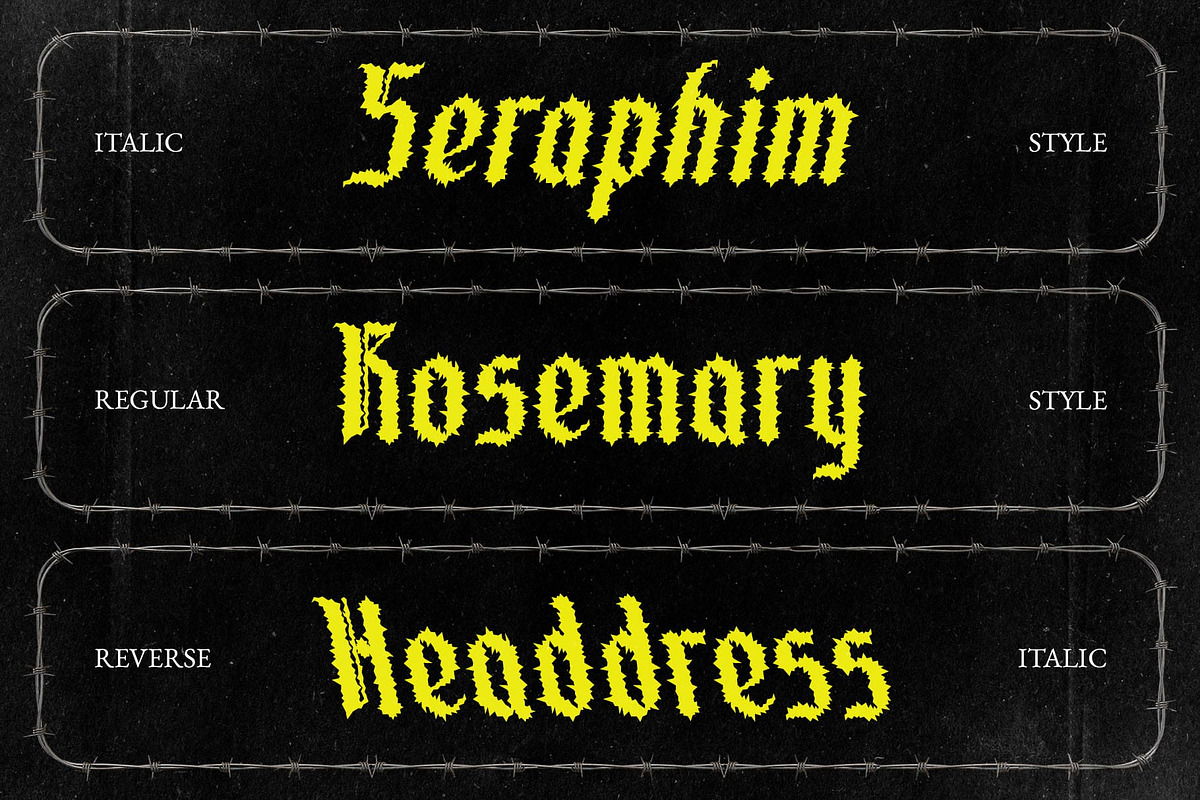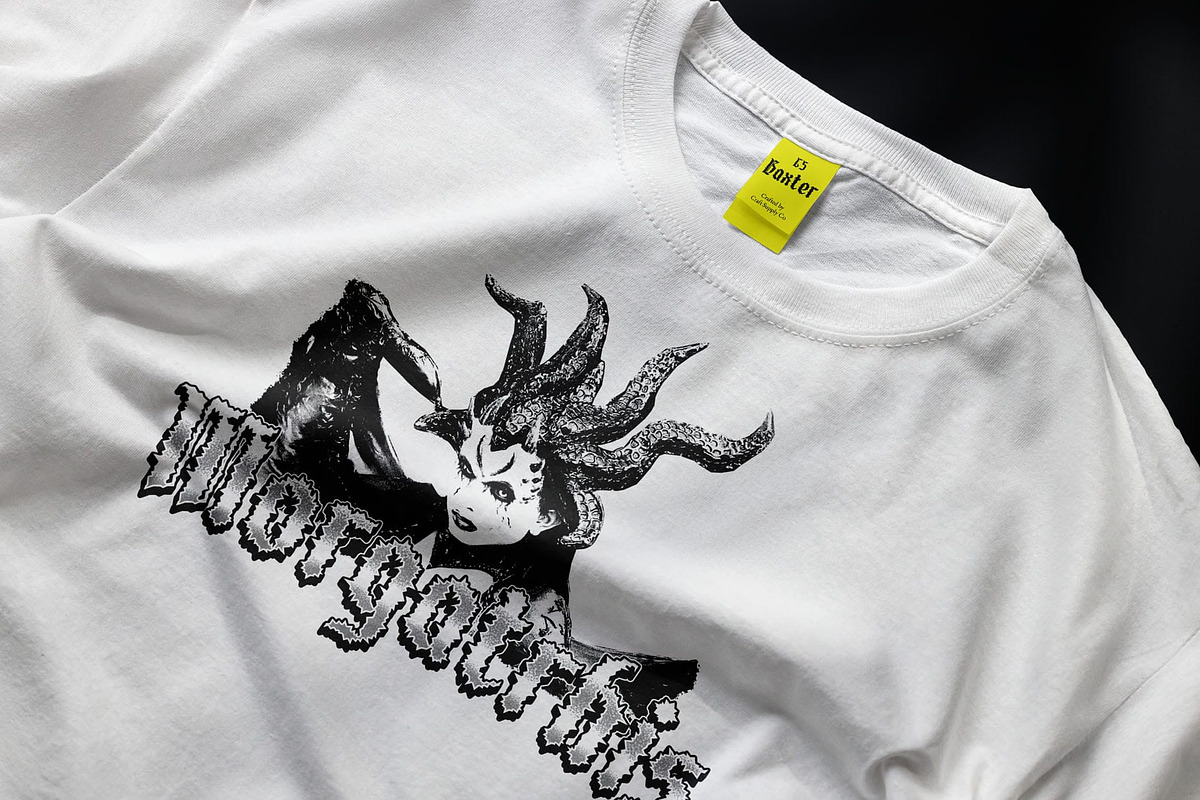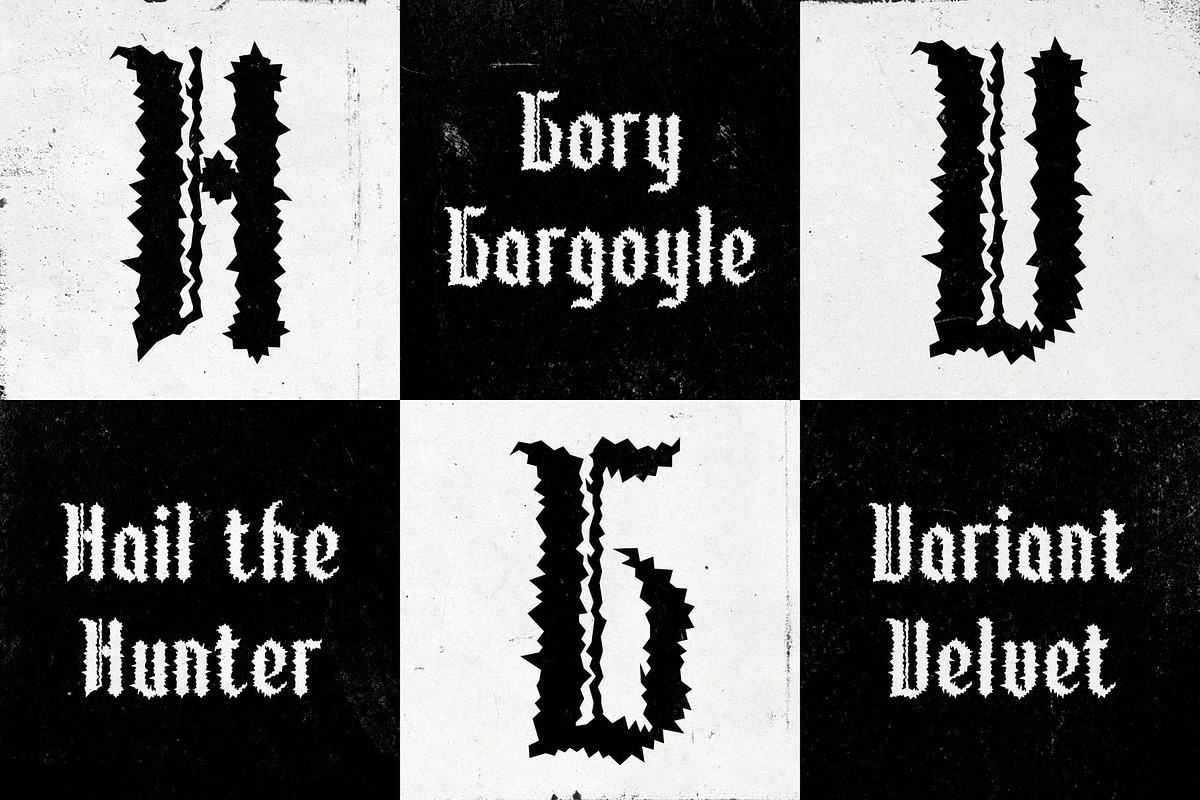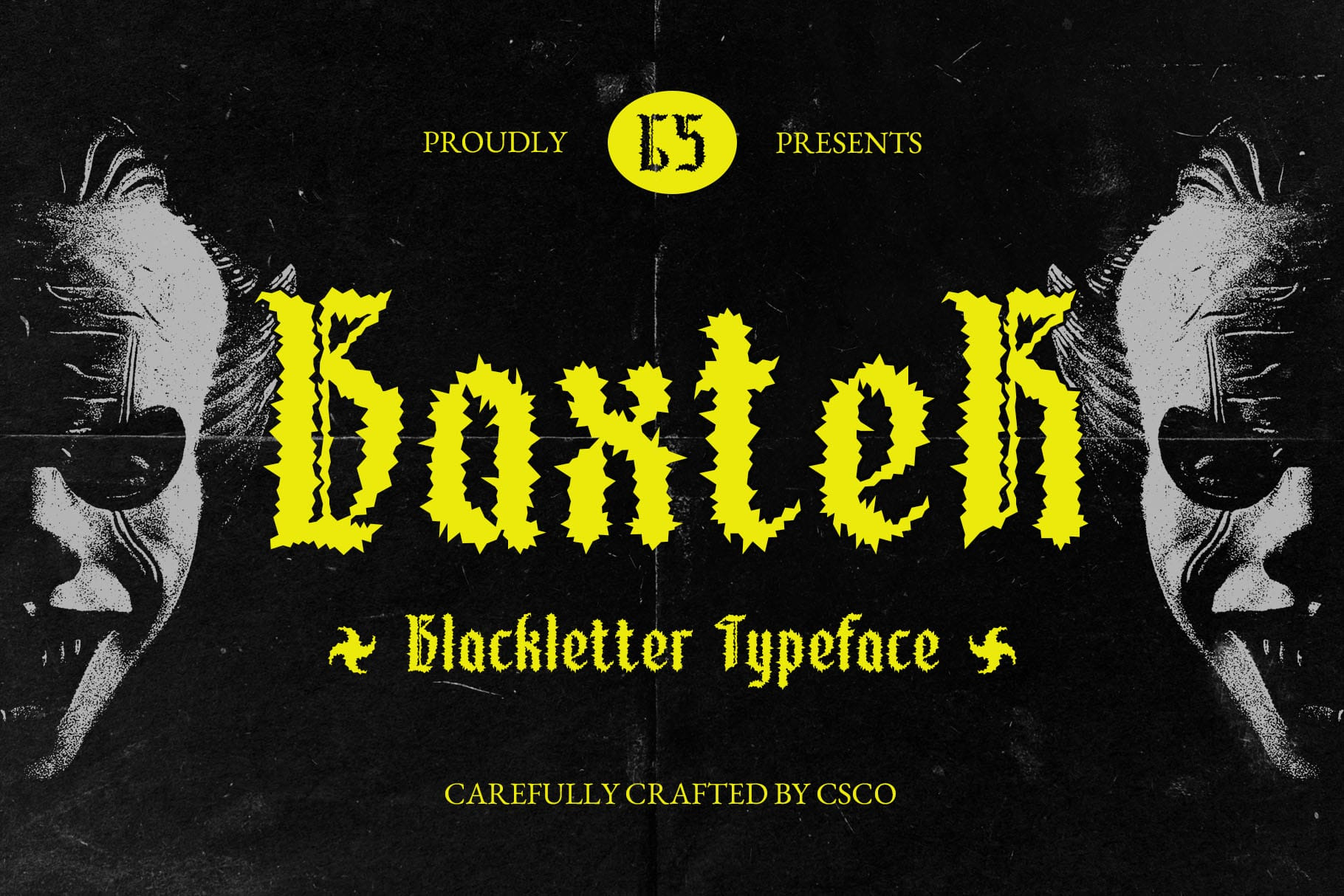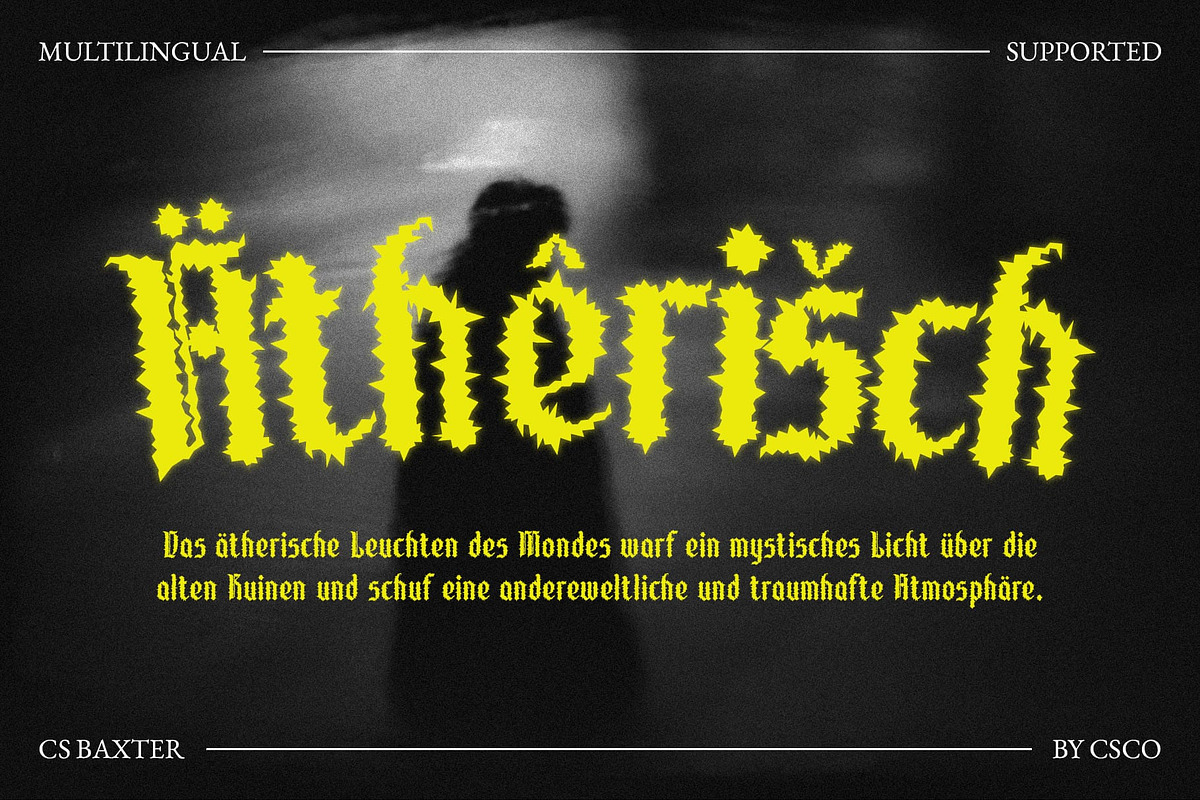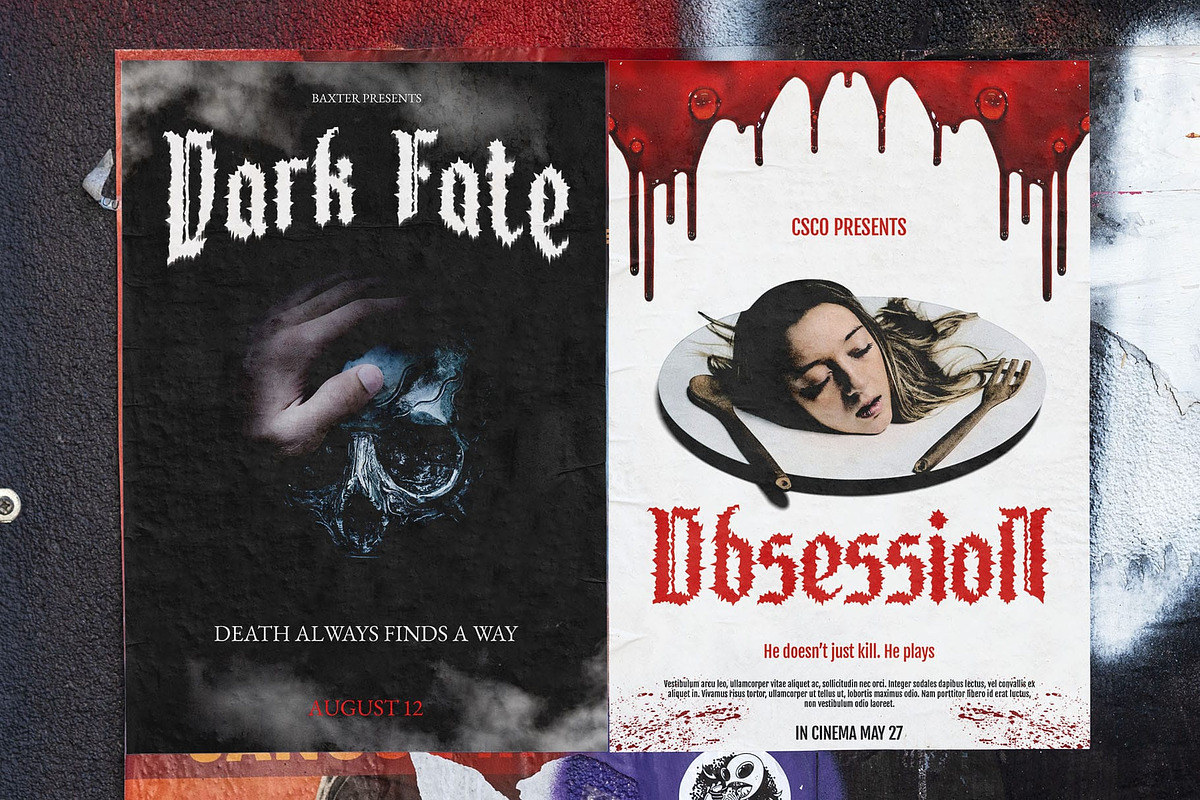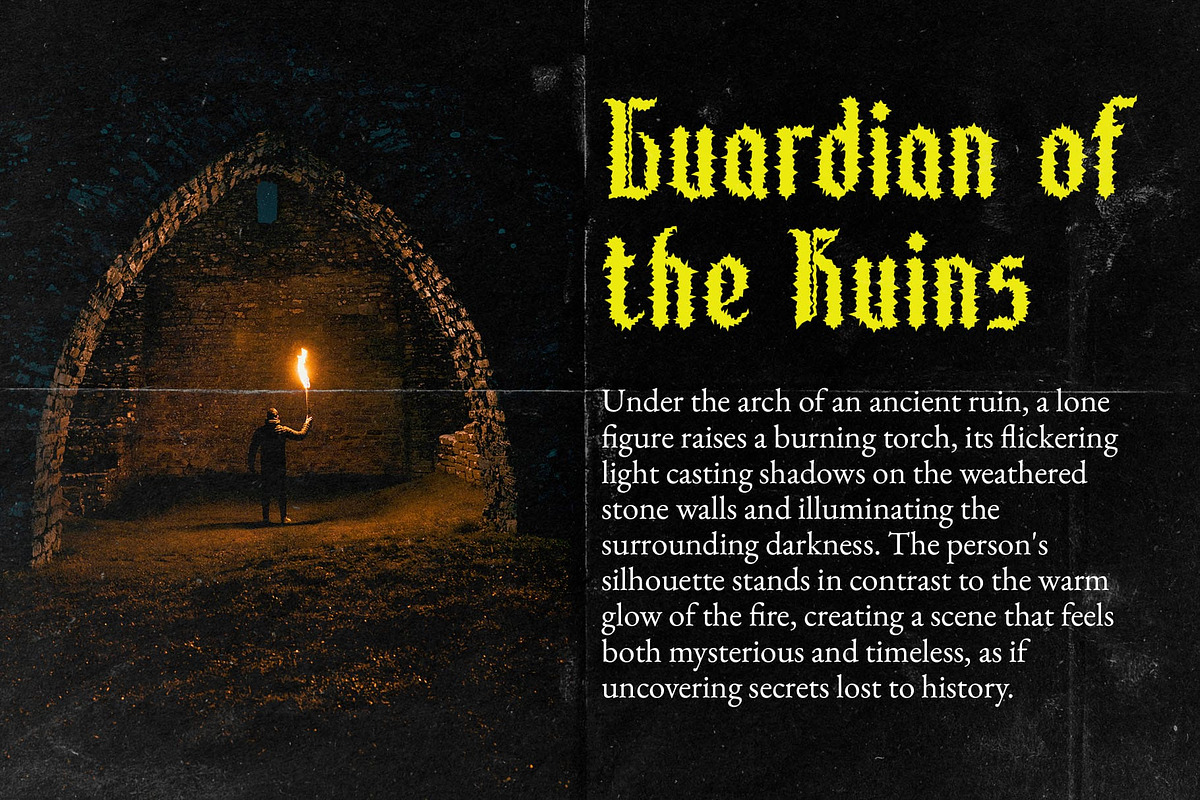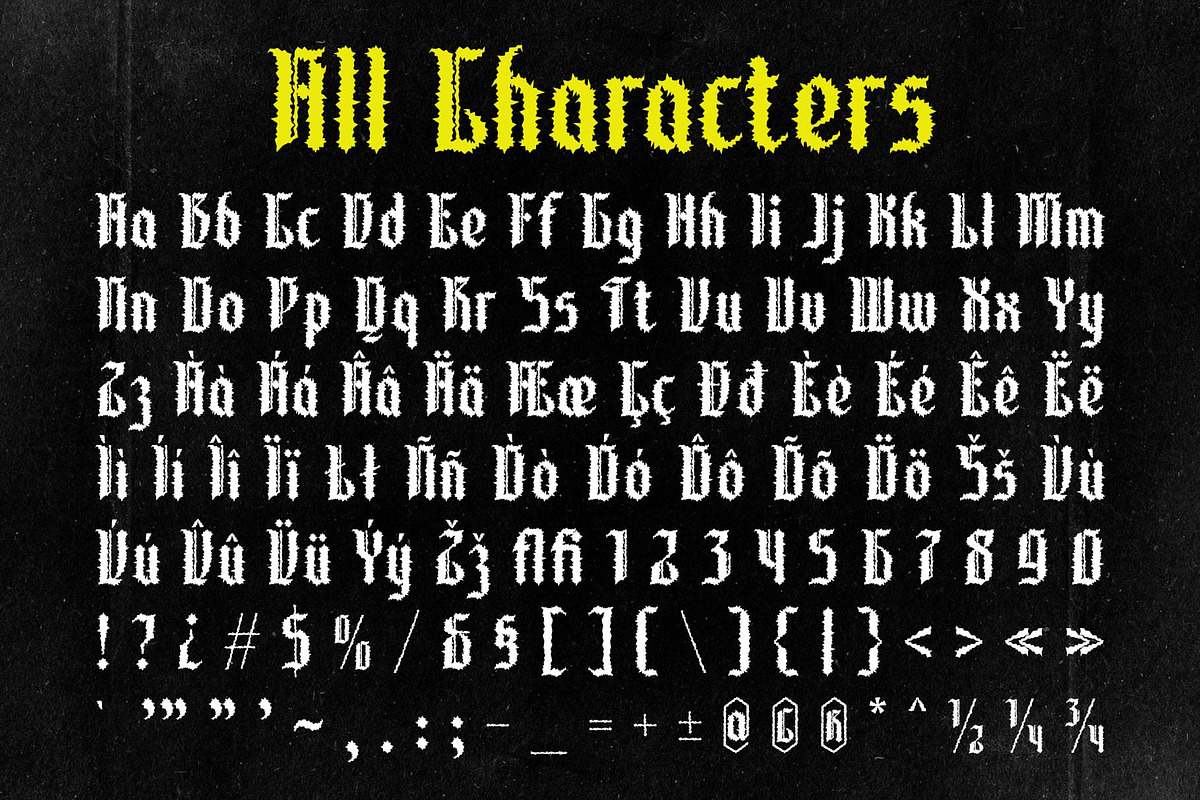
CS Baxter – Blackletter Font
CS Baxter – Blackletter Font: A Fusion of Tradition and Modernity
Modern Blackletter with a Contemporary Twist CS Baxter is a modern blackletter display font that skillfully merges traditional gothic aesthetics with a fresh, contemporary edge. While maintaining the signature sharpness and intricate details of classic blackletter, this font introduces a more flexible and refined structure, making it highly adaptable for modern design projects.
Sharp Letterforms with Dynamic Details With bold, angular strokes and expressive curves, CS Baxter captures the essence of old-world calligraphy while embracing modern design sensibilities. The contrast between rigid edges and fluid connections creates a striking visual impact, making this font stand out in any composition.
Perfect for Edgy and Experimental Designs CS Baxter is ideal for branding, music posters, fashion labels, and projects that require a bold, artistic presence. Its gothic yet versatile look makes it perfect for alternative branding, tattoo-inspired graphics, and promotional materials for rock, metal, or streetwear aesthetics.
A Typeface That Exudes Strength and Character Whether used in logos, editorial headlines, or statement designs, CS Baxter delivers a powerful, rebellious, and artistic impression. Its unique fusion of blackletter tradition with modern adaptability ensures it remains a timeless and impactful choice for designers seeking to make a bold statement.
- CS Baxter Regular
- CS Baxter Italic
- CS Baxter Reverse Italic